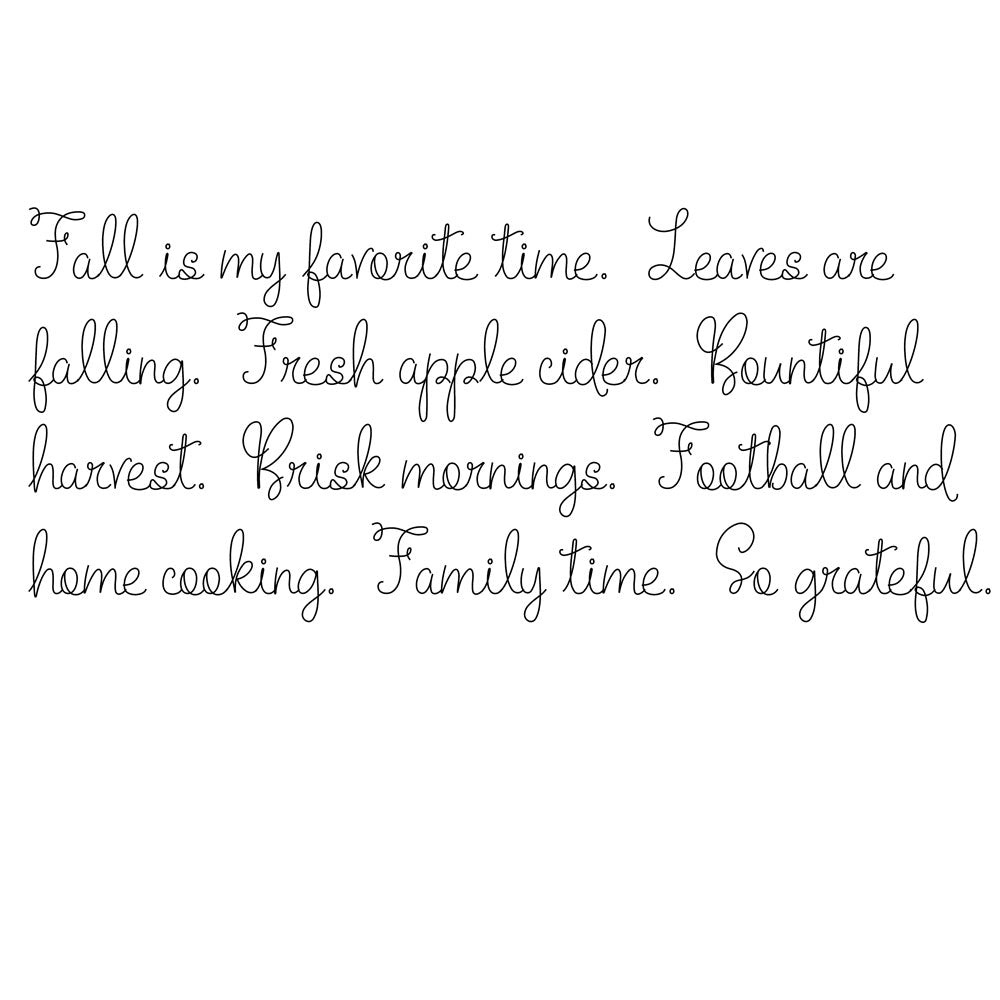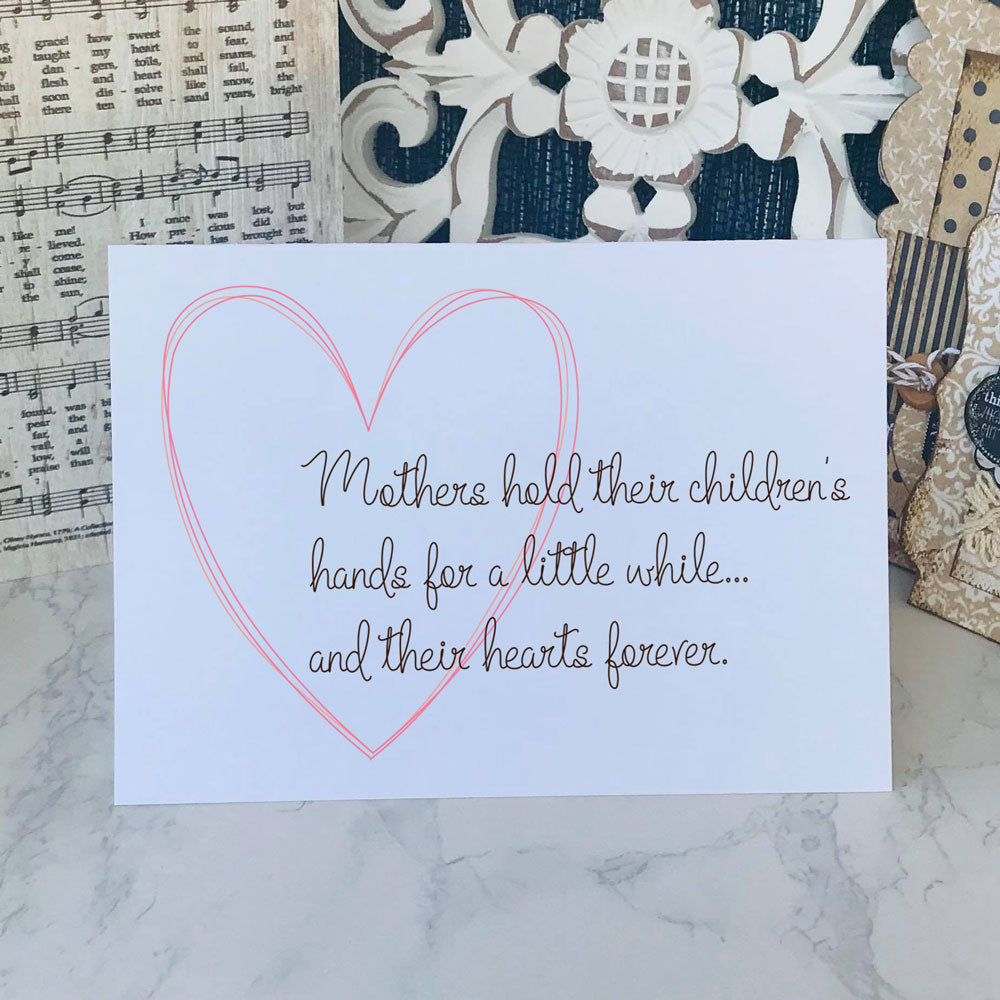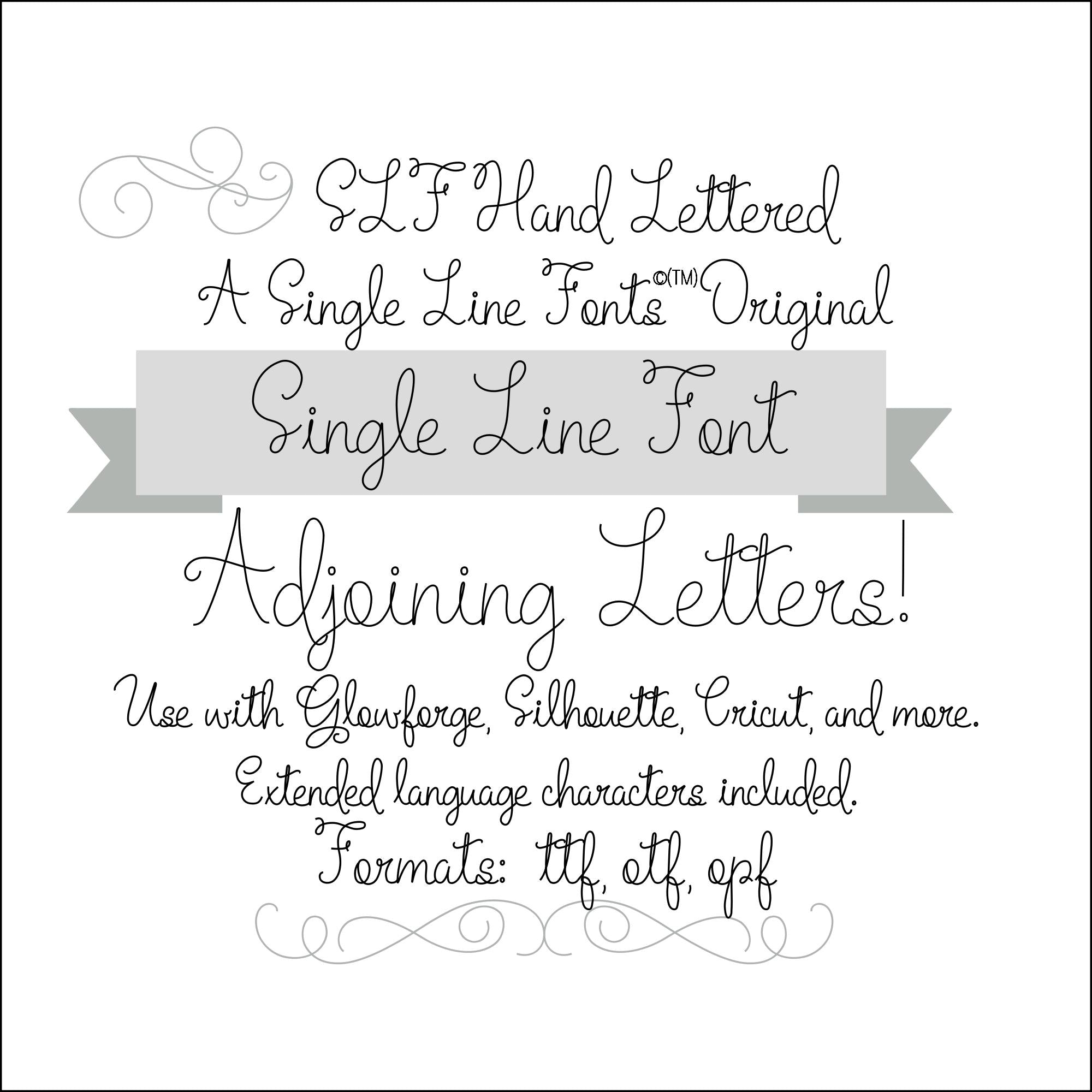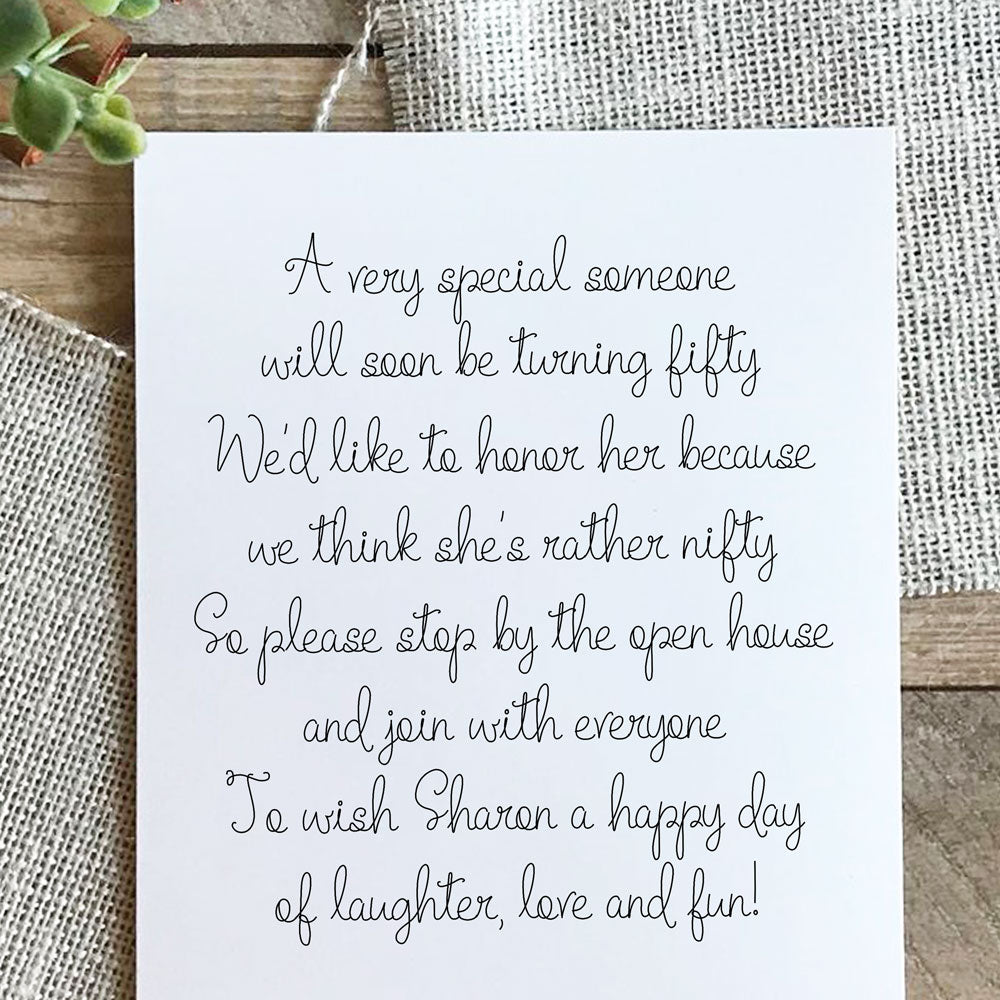
Single Line Font "SLF Hand Lettered"
A script font that looks like real hand lettering, this font is perfect for cards, foil quill projects, engraving on jewelry, and anywhere you need a personal touch that looks realistic and classy.  See photos for full character set.